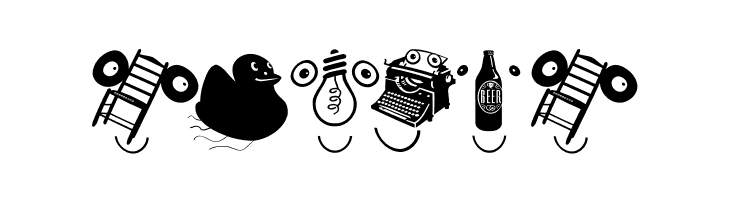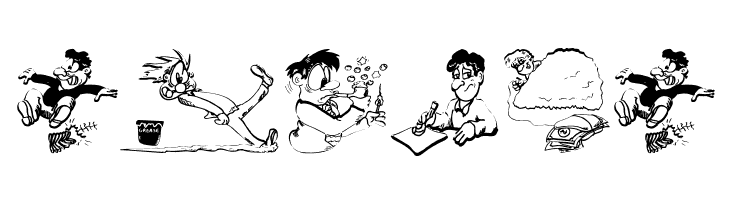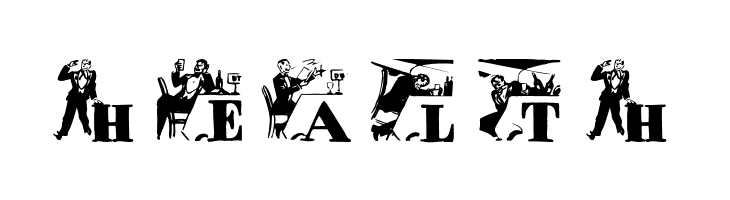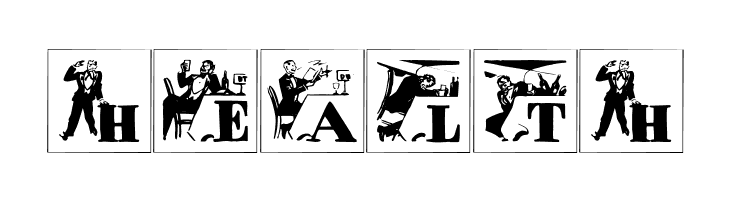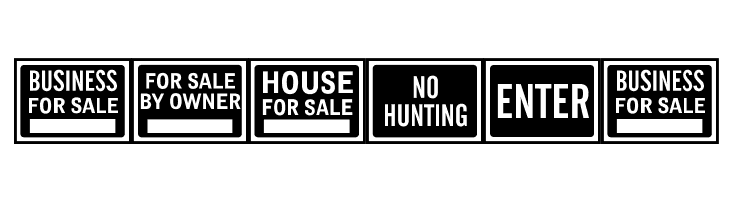
• ALISEO
• Alkatros FREE
A lively and expressive handwritten font with fluid, dynamic strokes.
• Alkilri FREE
A bold, expressive brush script font with a modern, handwritten style.
• AlkoInitials
An ornate, illustrative font with detailed scenes within each uppercase letter.
• AlkoInitialsFramed
A decorative font with framed uppercase letters featuring intricate illustrations.
• all exes must die!
A bold, jagged, and dynamic font with a hand-cut appearance.
• All-Purpose Signs JL
A bold, clear font ideal for signage and public notices.
• AllDaysJokes
Cartoonish, hand-drawn font with each letter as a comic illustration.
• allenois free
• AllesNurGeklaut
A whimsical decorative font with playful illustrations for each character.